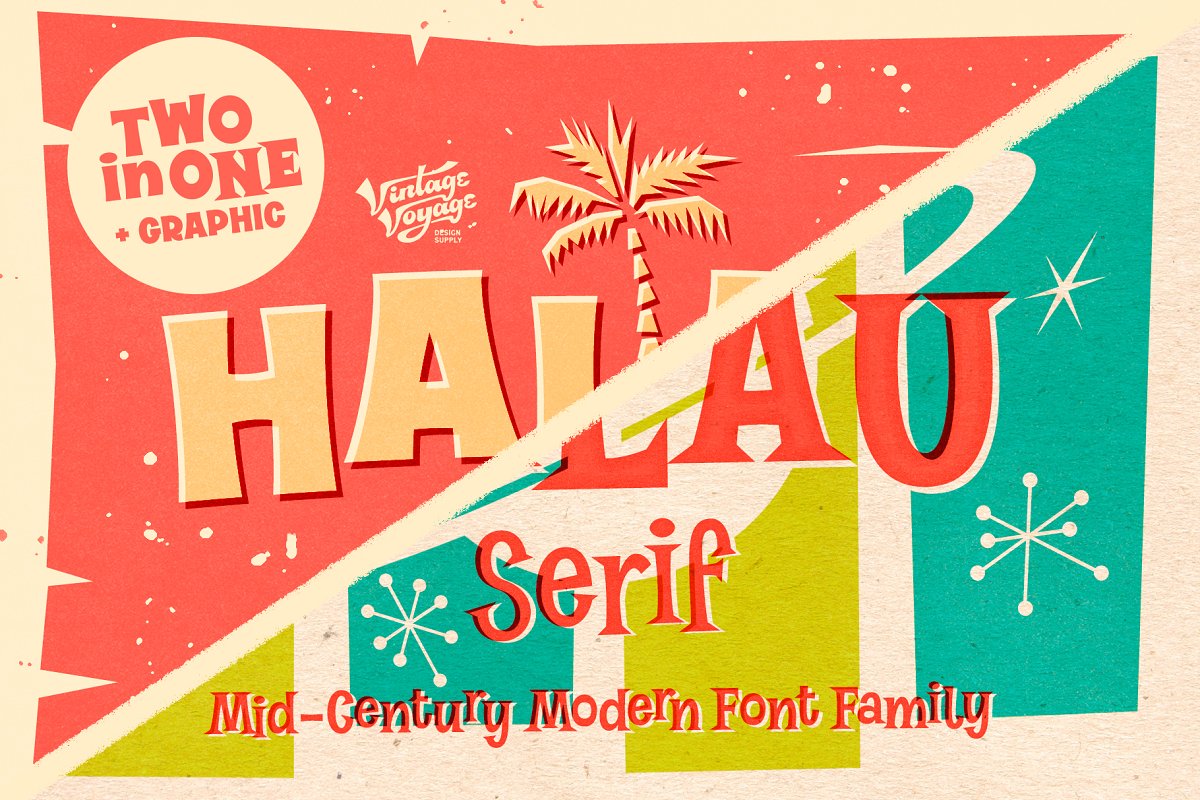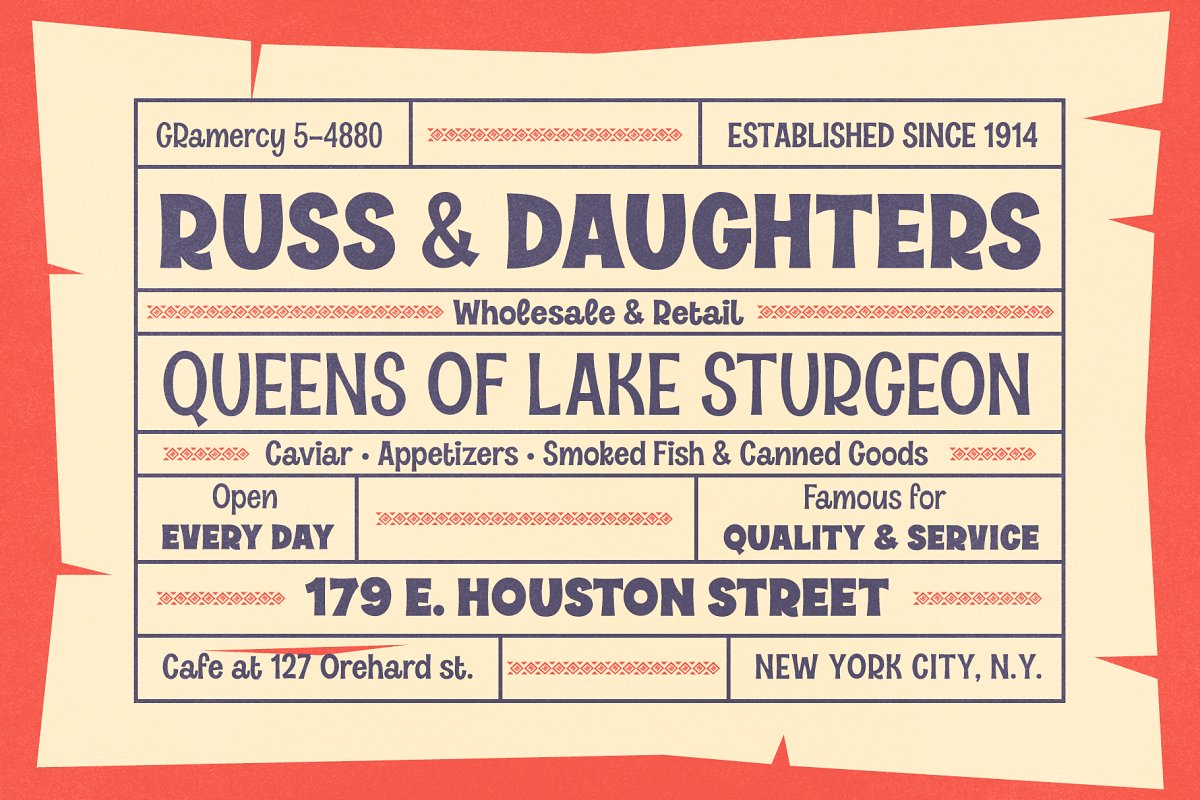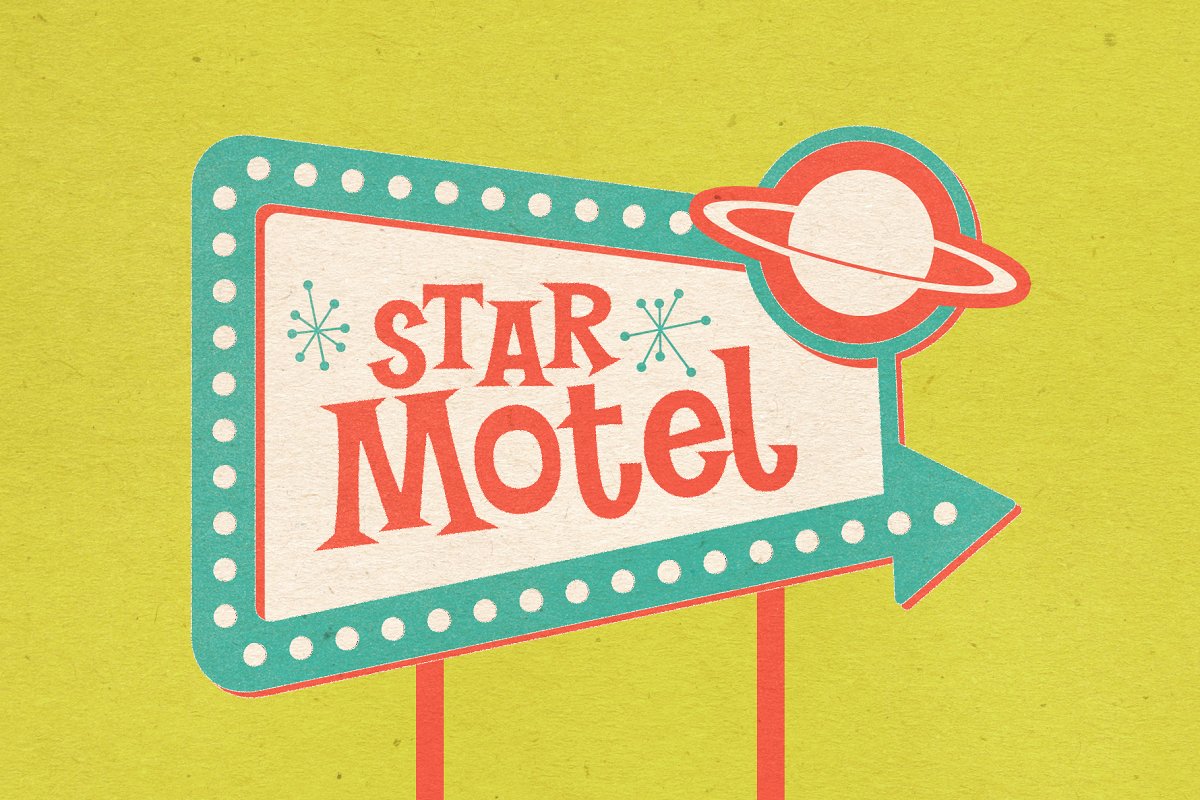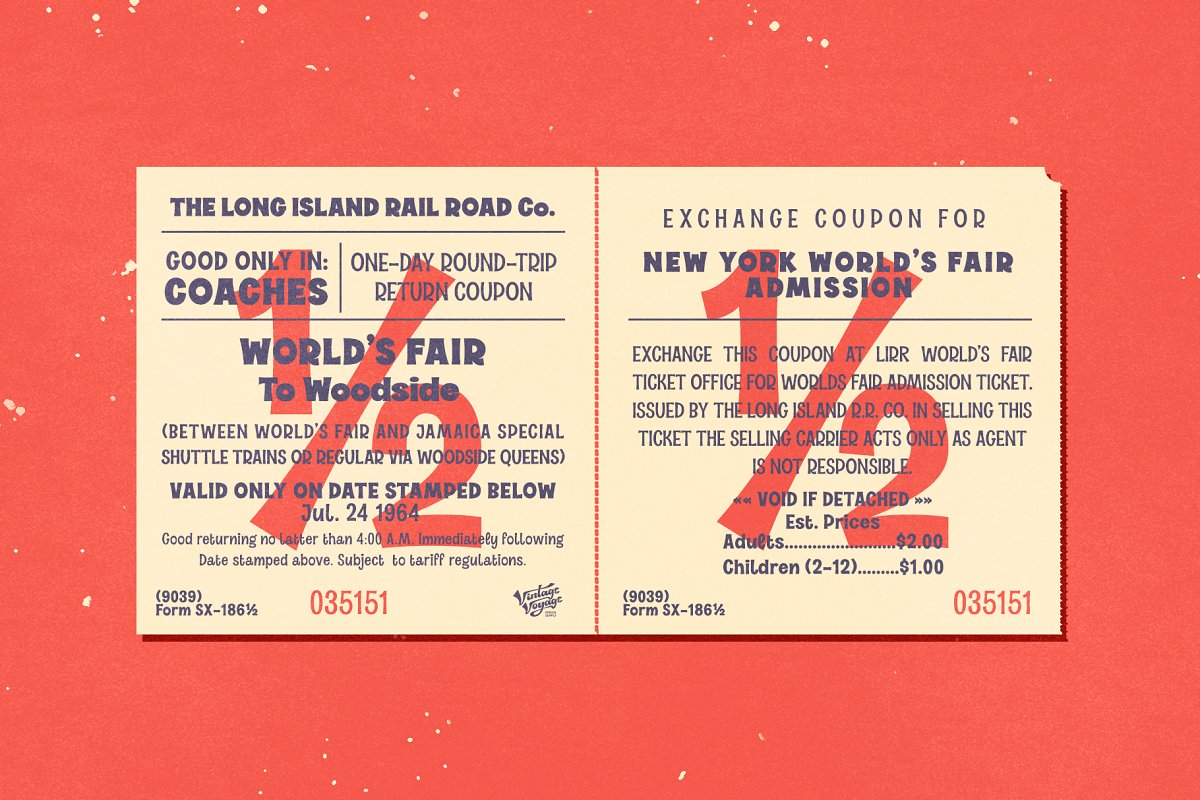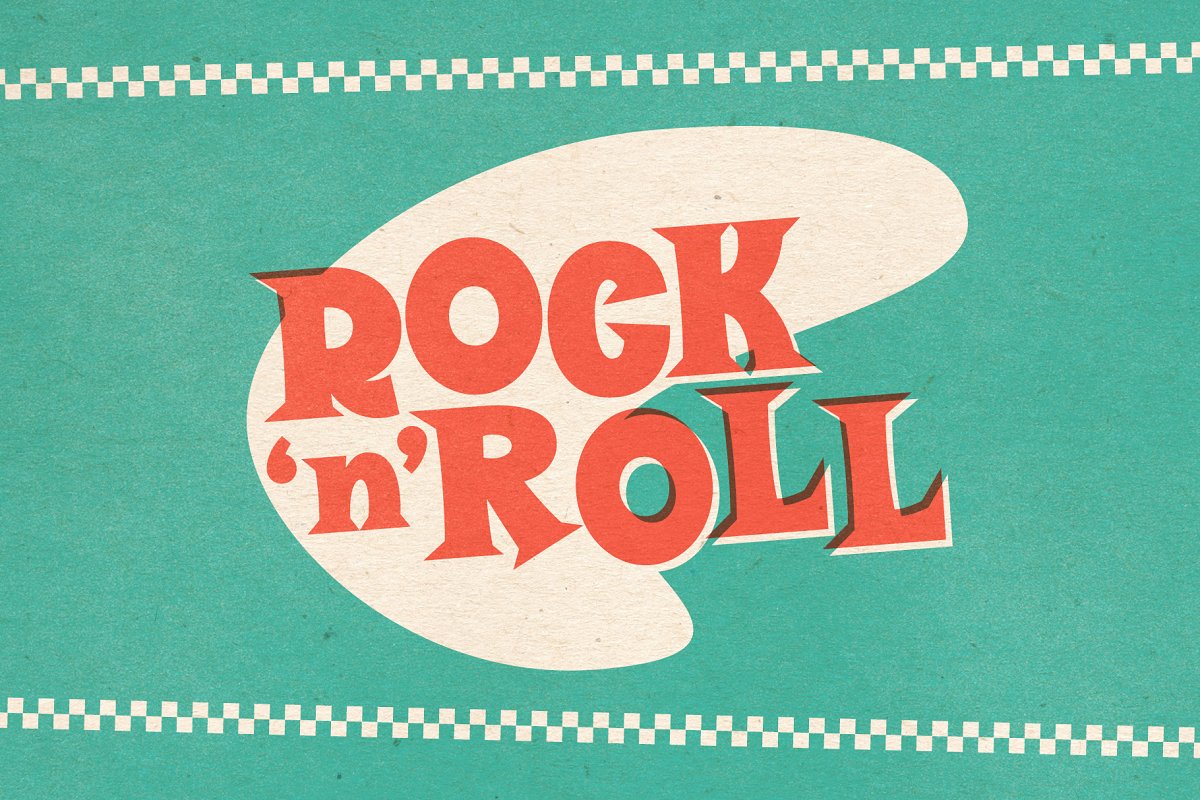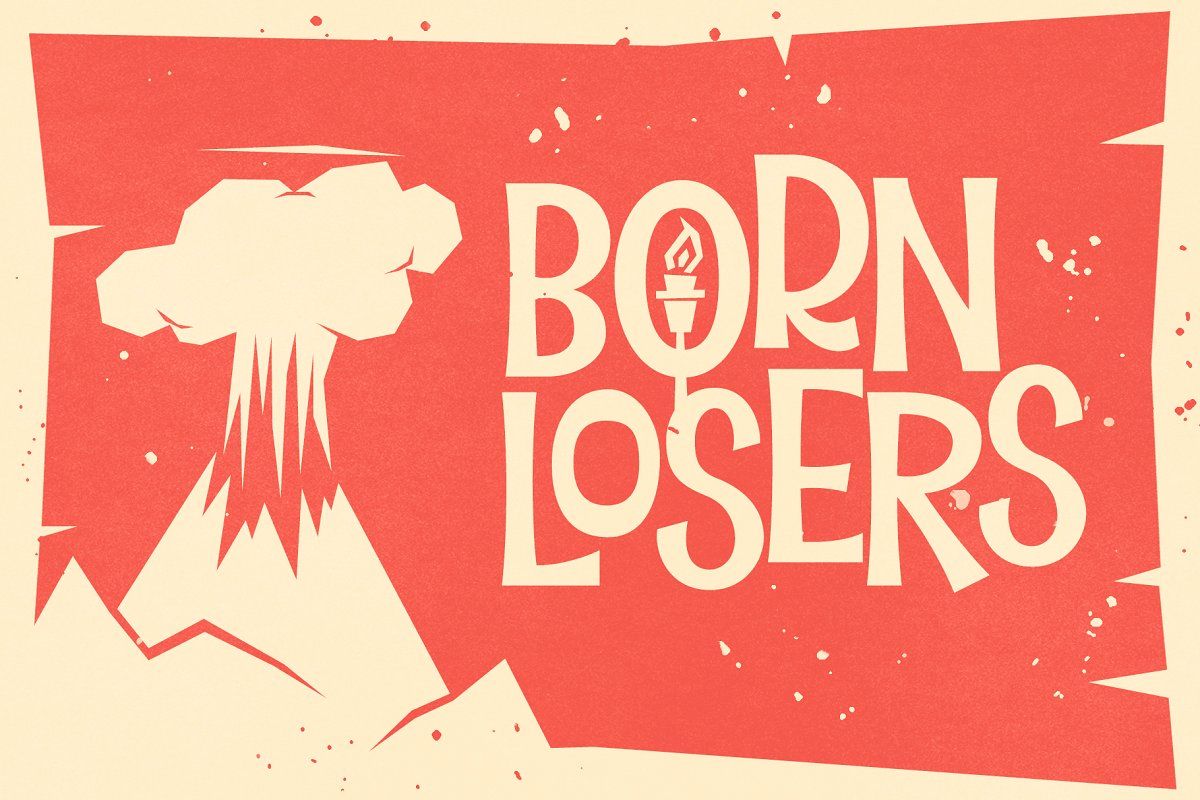
EXCLUSIVE FOR CREATIVE MARKET USERSFull HALAU font family (10 typefaces w/ bonus graphics) just for $18!Introducing two awesome mid-century modern font family – Halau Sans & Serif, Classic mid-century fonts with characteristic cartoon look, Straight for your summer projects, More fun, more sun and more retro-modern! I really love this Retro Cartoon style in 60s or 70s advertising or Hawaii style posters
Combine different width styles for outstanding typography design, Play with it and get really cool retro-lettering style, Also, you can use some alternates (A, E, K, R, Y, a, g, l, k), Hawaii style illustration & Mid-Century Modern style graphic objects as letters and numerals alternates (72 Total)
Two styles – Sans & Serif, Five widths – Thin, Light, Regular, Medium and Bold, Don’t miss it!